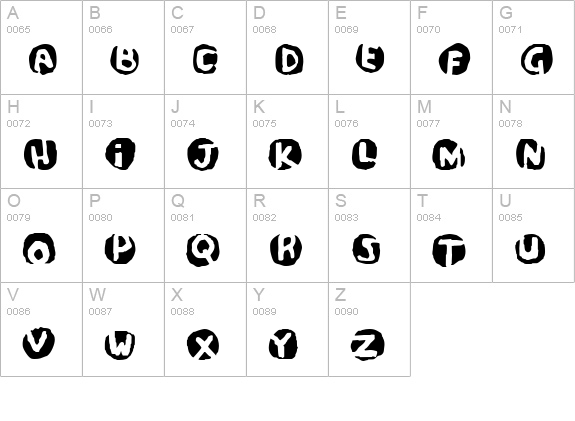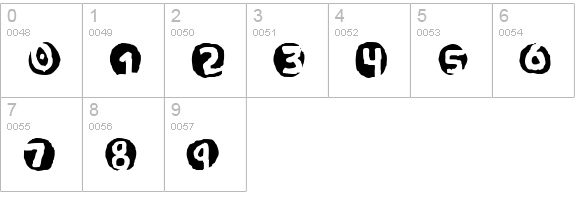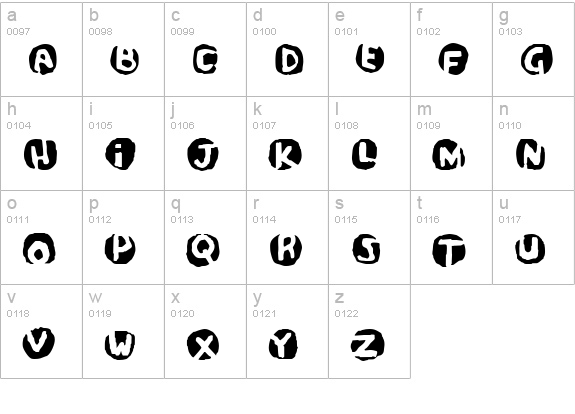
Potassium Scandal Font Details
Potassium Scandal font is a quirky and playful typeface that exudes a sense of fun and creativity. With its unique design and eye-catching details, this font is perfect for adding a touch of whimsy to any project. The bold and energetic appearance of Potassium Scandal font makes it ideal for headlines, logos, posters, and more. This versatile font is available for free download at FontsMarket.com, making it easily accessible to anyone looking to add a bit of personality to their designs. Whether you're working on a branding project, creating social media graphics, or designing a flyer, Potassium Scandal font is sure to make a statement and leave a lasting impression. So why wait? Download Potassium Scandal font today and let your creativity shine!